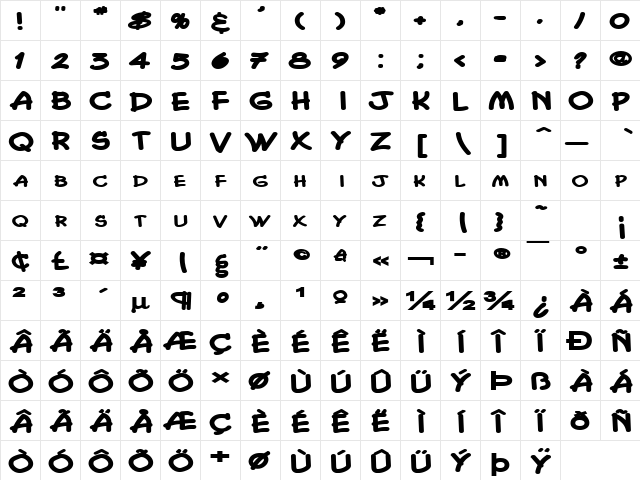
Chasm Extended Heavy Bold
Design Context for Chasm Extended Heavy Typeface
Chasm Extended Heavy is a composed and adaptable typeface that performs quietly and consistently across a wide range of design contexts. Its bold stroke weight gives it real presence on the page.